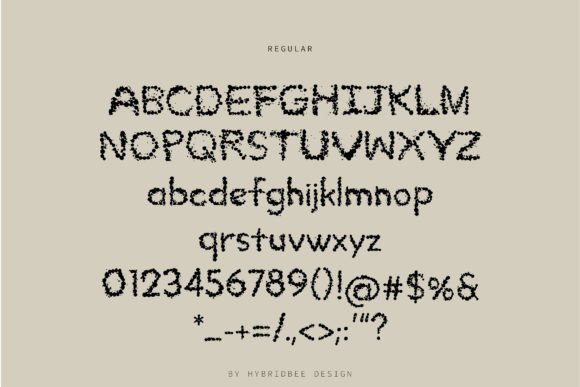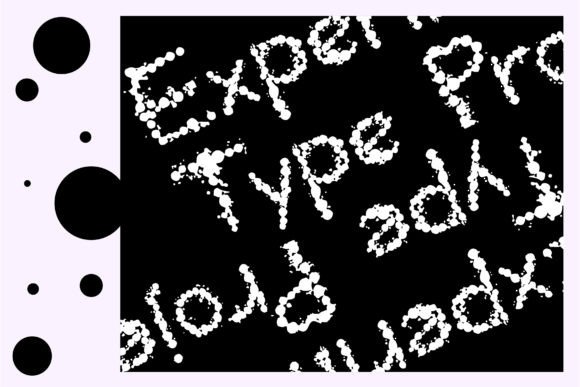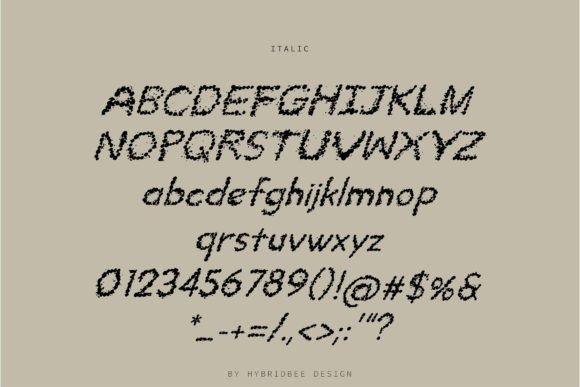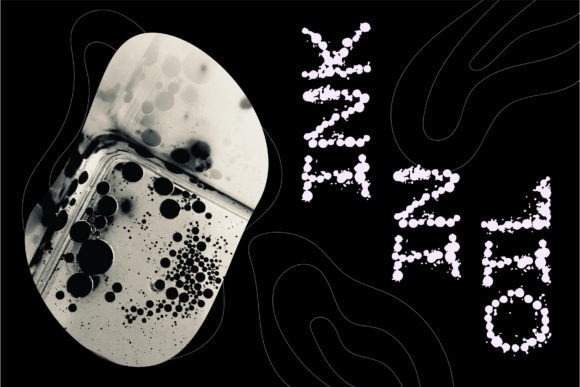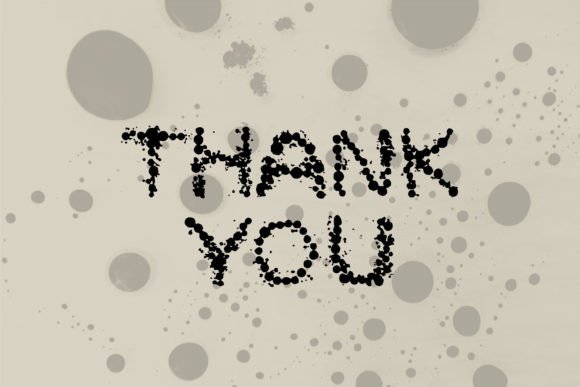
Introduction to Inklets Font
Inklets is a display font with a unique and experimental edge.
It has a fun and artistic style and can be used to create posters, headlines, branding, packaging, logo, web design, etc .
Key Features of Inklets Font